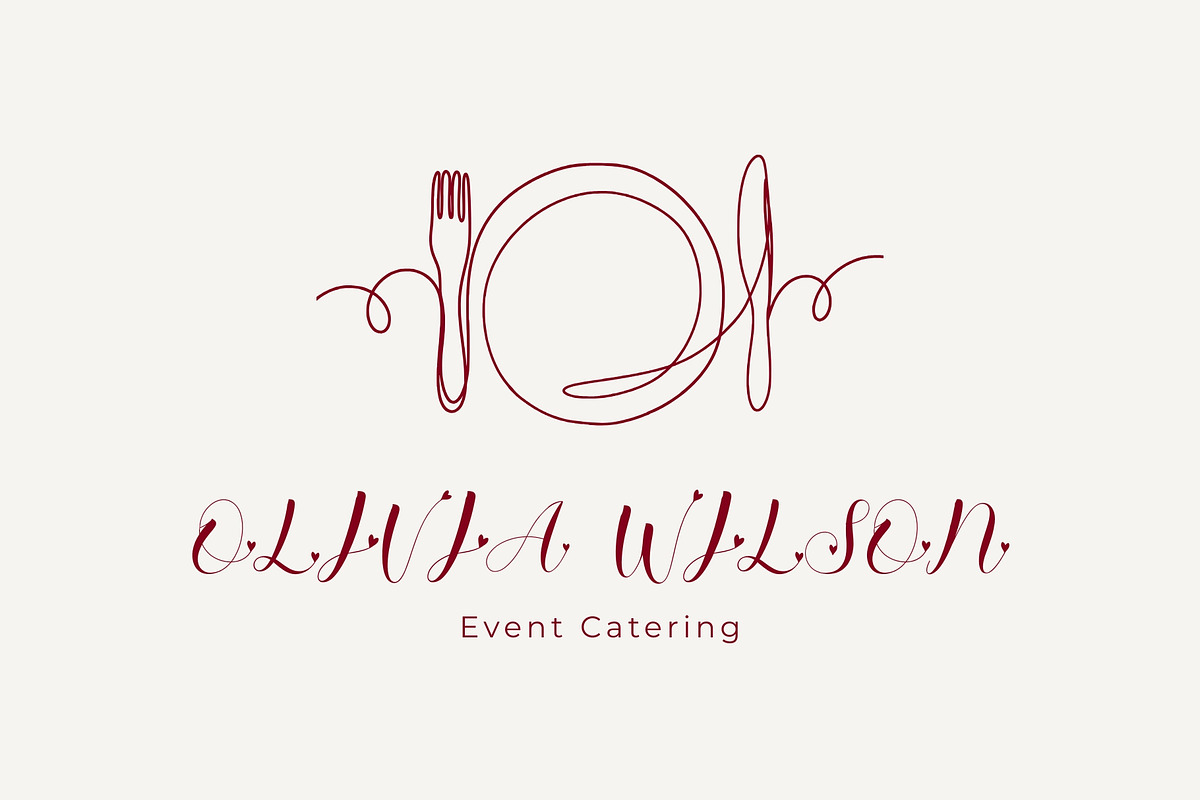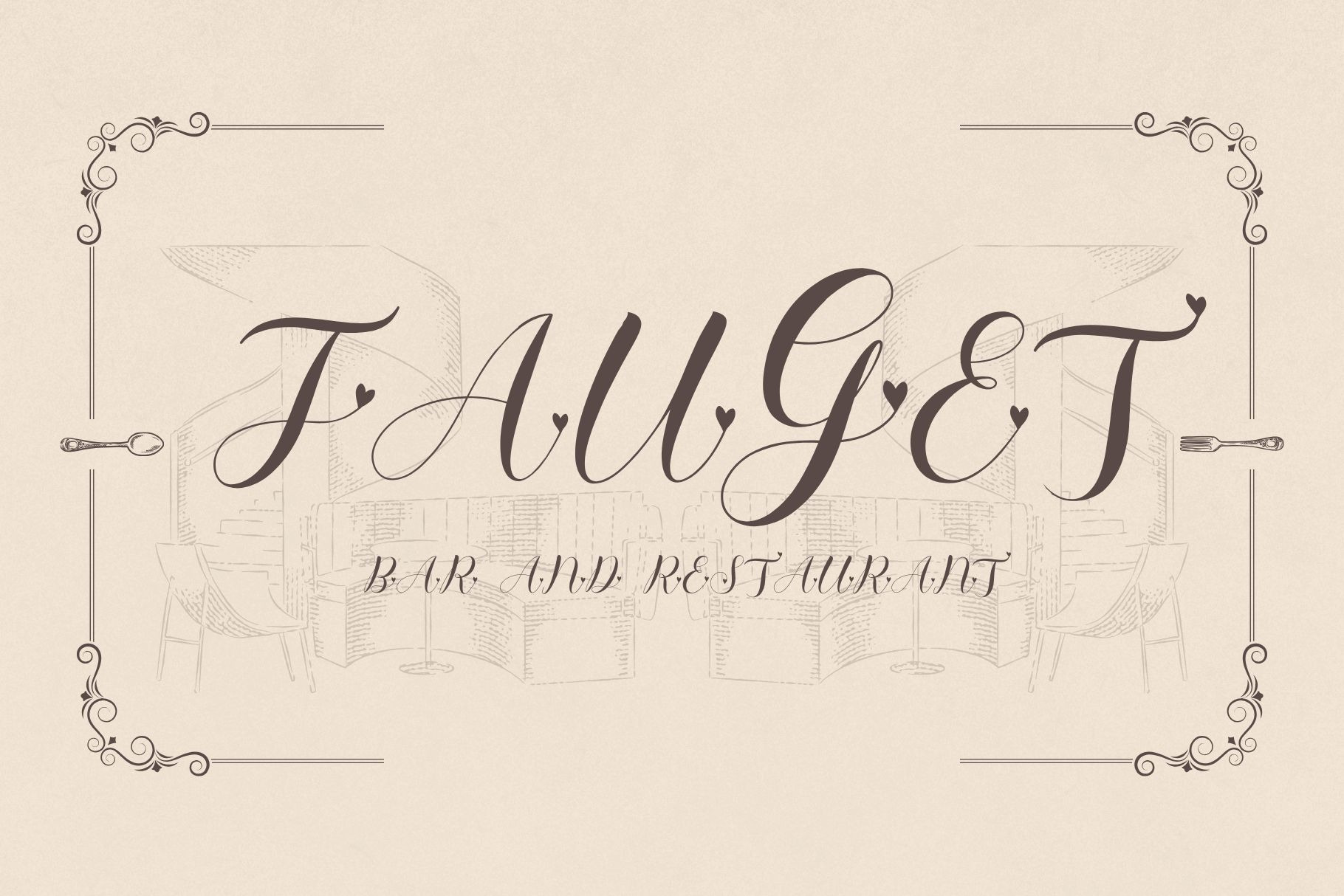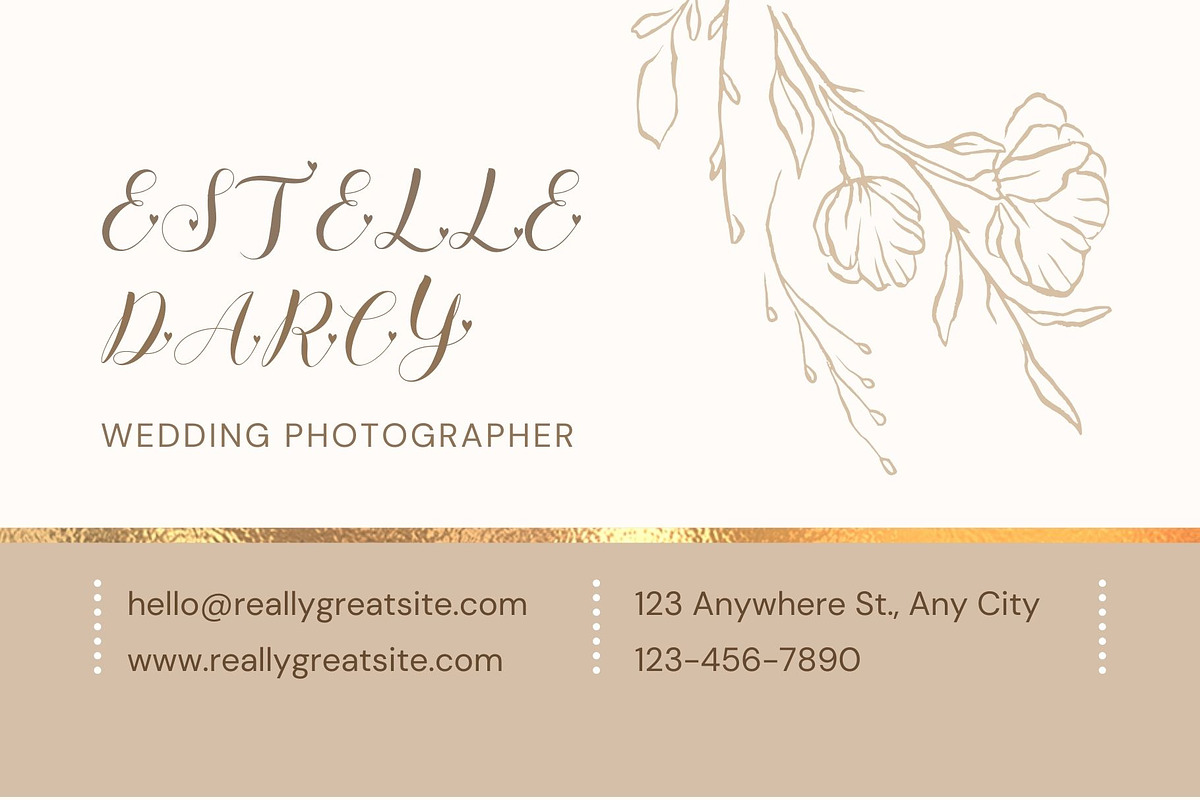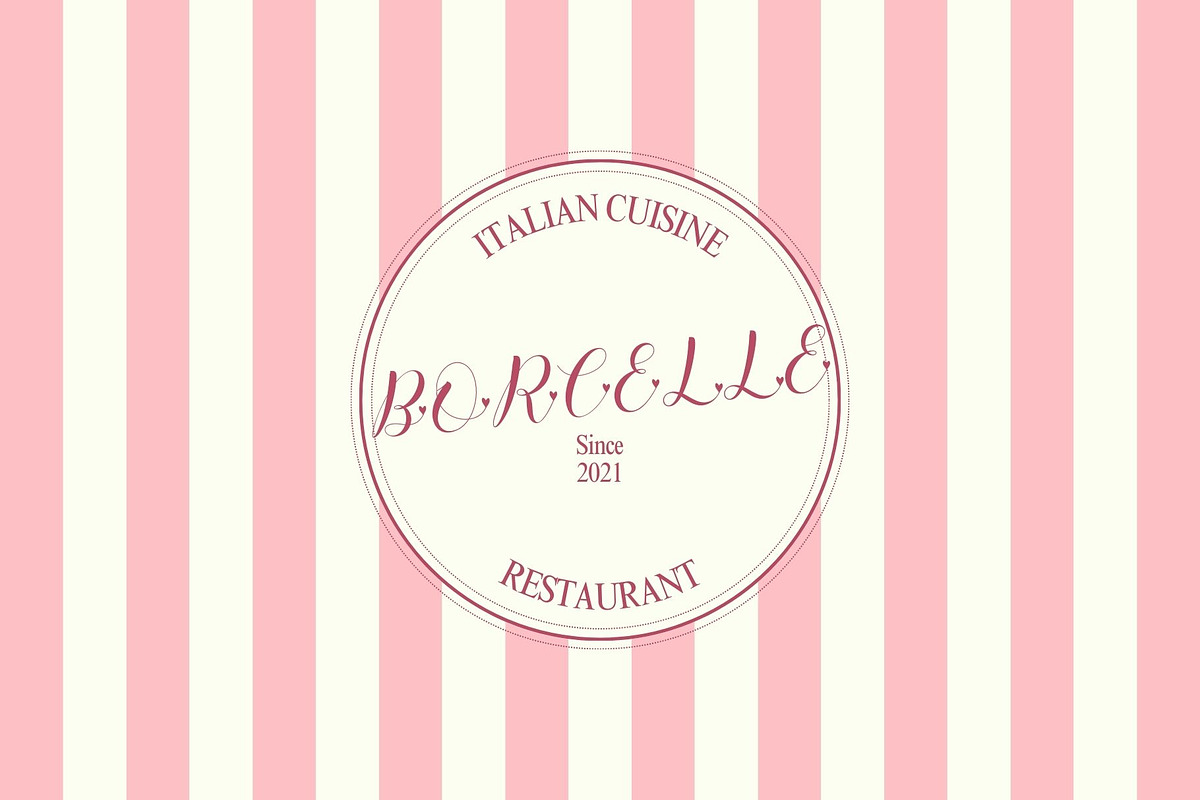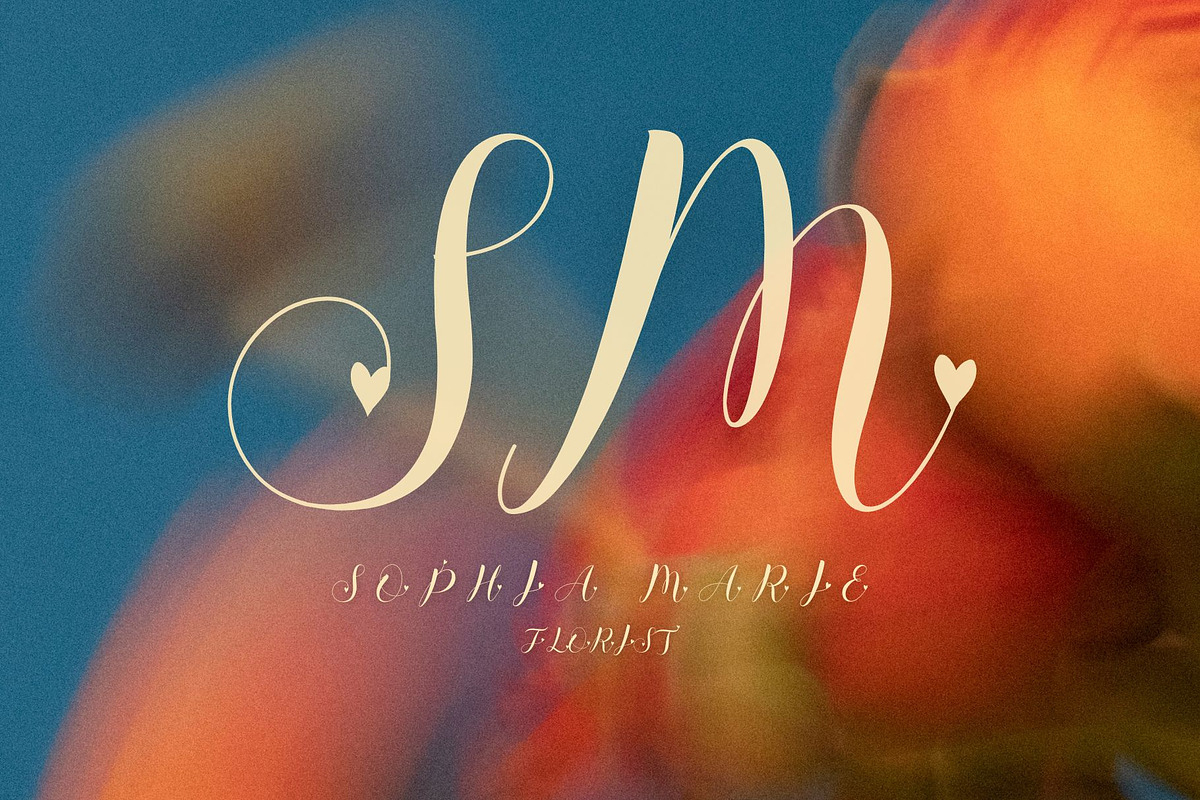
Elegant Handwritten Script Font
This elegant handwritten script font features flowing calligraphic strokes and a romantic, decorative style. Designed to bring sophistication and warmth, it is perfect for logos, branding, and headline-focused designs.
With its smooth curves and handcrafted feel, this font works beautifully for restaurant and café branding, wedding designs, boutique logos, menus, invitations, and luxury visual identities. Best used at medium to large sizes to highlight its graceful details.
Restaurant & café logos
Branding & logo design
Wedding & romantic projects
Menus, invitations & packaging
Luxury and boutique designs